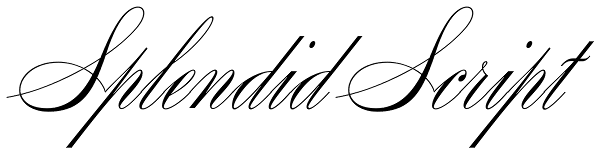
Splendid
The traditional division of a type-face family into four designs pertains to every body type. However, jobbing typography calls for a richer tonal scale. Its purpose is to decorate, to represent and to please. Splendid Quartet is an example of a...
Splendid Sans
Splendid Serif
Splendid Serif Bold
Splendid Script